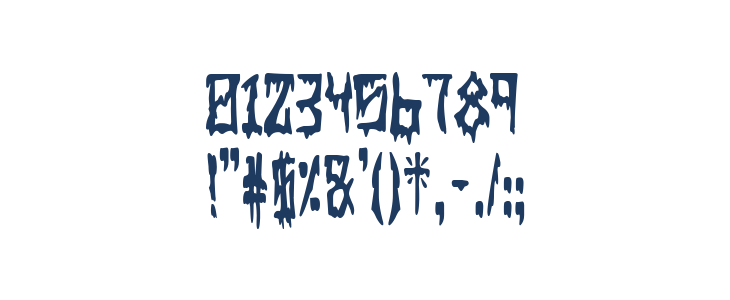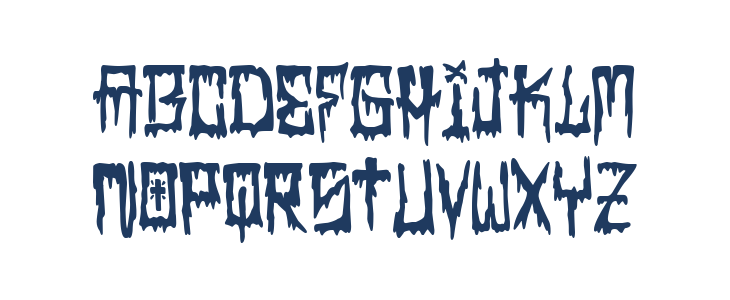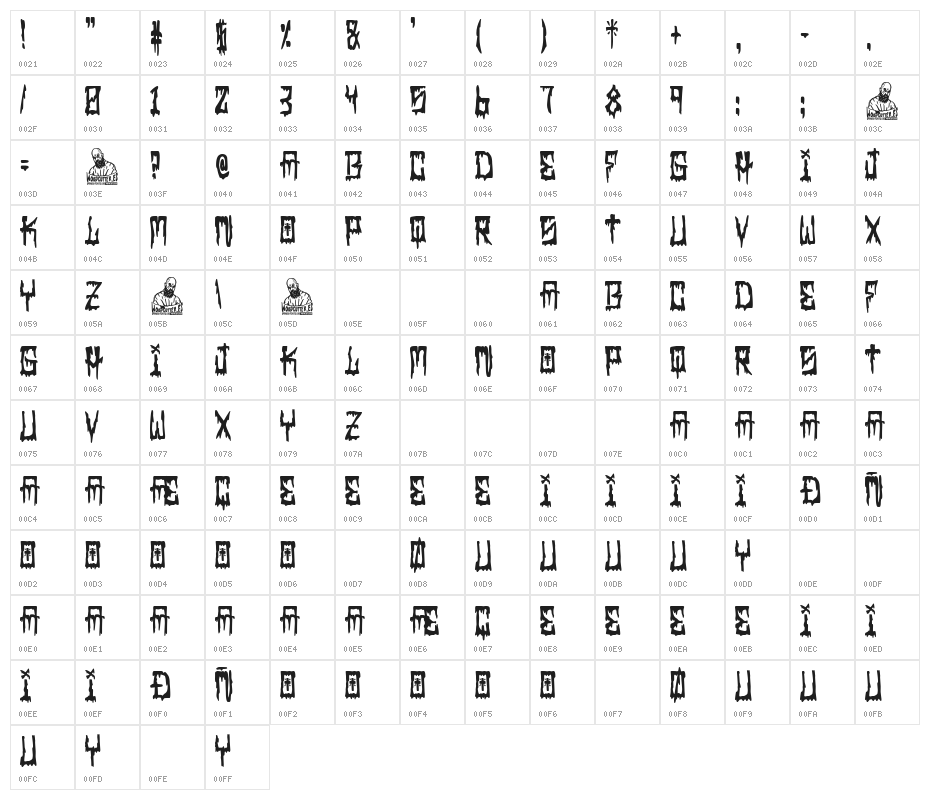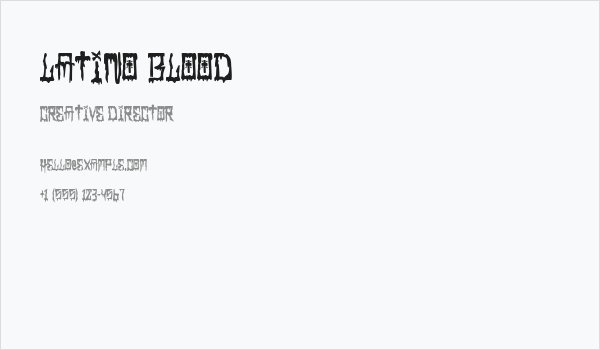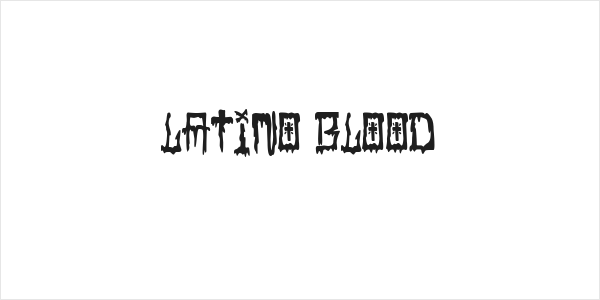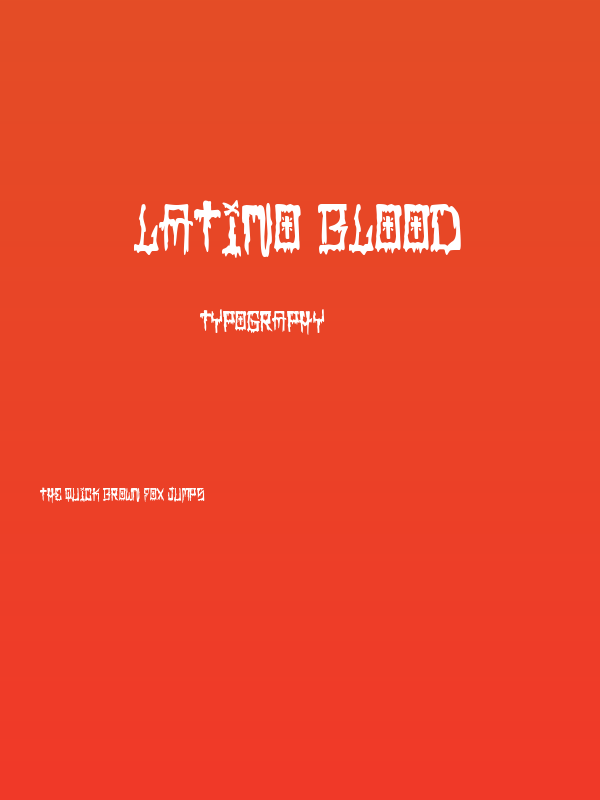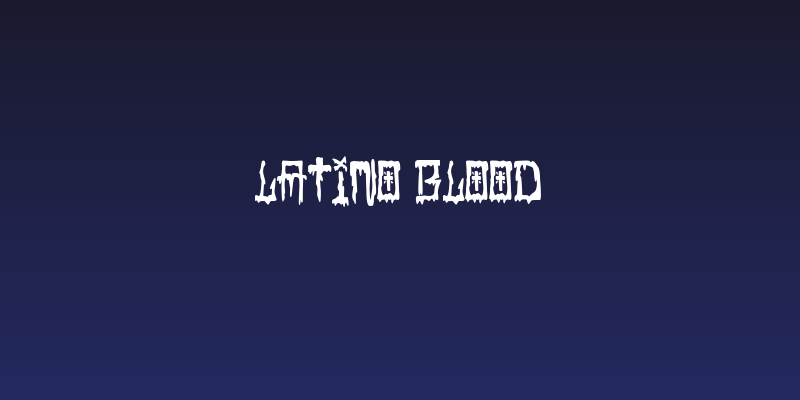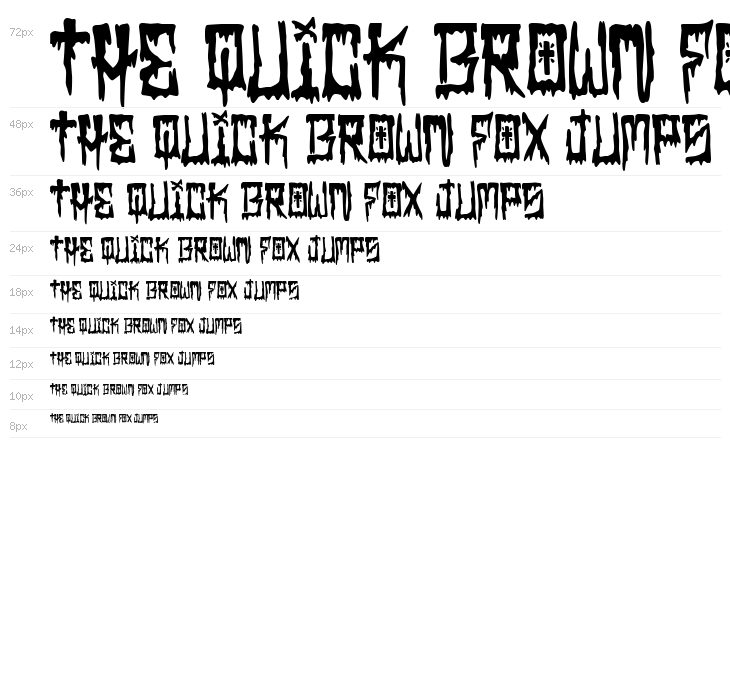
Latino Blood Font
Latino Blood Description
A bold, dripping, horror-inspired decorative font with jagged edges and irregular shapes, evoking a sense of blood or melting material. The characters are uppercase, with some featuring unique embellishments such as crosses and accents, and the numerals and punctuation follow the same dramatic style.
| Overall Style | Decorative, Horror, Thematic |
| Use Case | Headlines, Posters, Logos, Event Flyers |
| Proposed Projects | Halloween posters, horror movie titles, haunted house signage, themed party invitations, graphic novels, video game titles. |